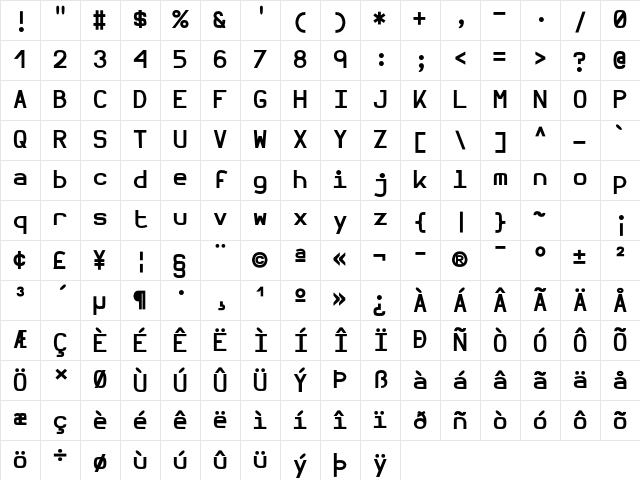
Hurmit NF bold Free Font
Hurmit NF bold
Style: bold
Design Context for Hurmit NF
Hurmit NF is a composed and adaptable typeface that performs quietly and consistently across a wide range of design contexts. Its bold stroke weight gives it real presence on the page.